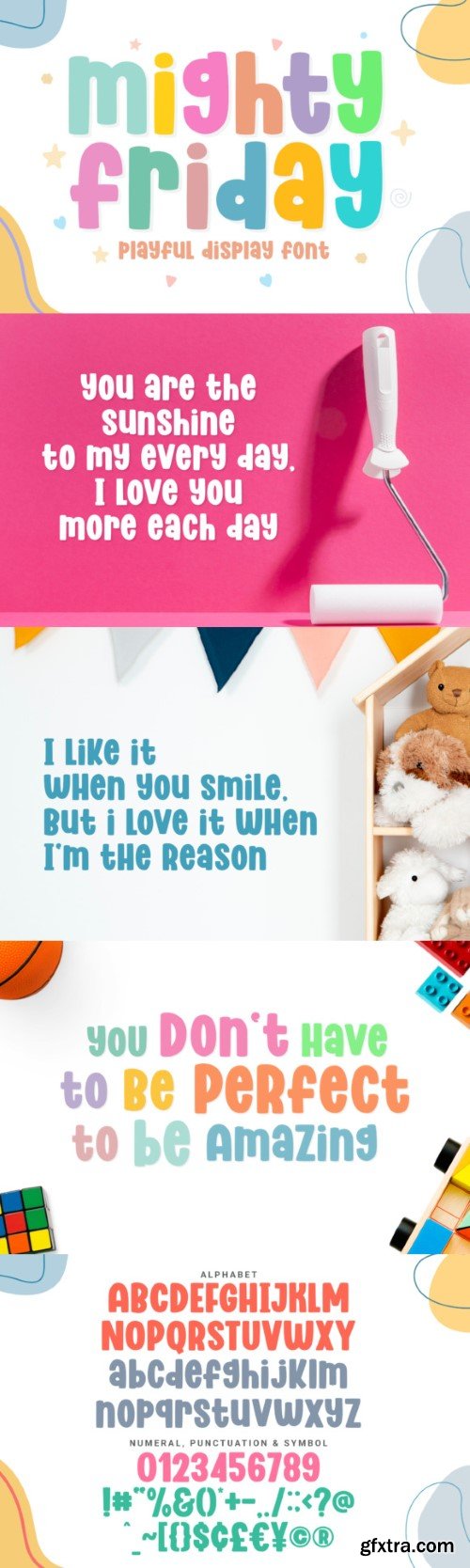
麦蒂星期五字体
Mighty Friday is a cute and playful display font. It will add an incredibly joyful touch to your designs. Add this beautiful display font to each of your creative ideas, and notice how it makes them stand out!